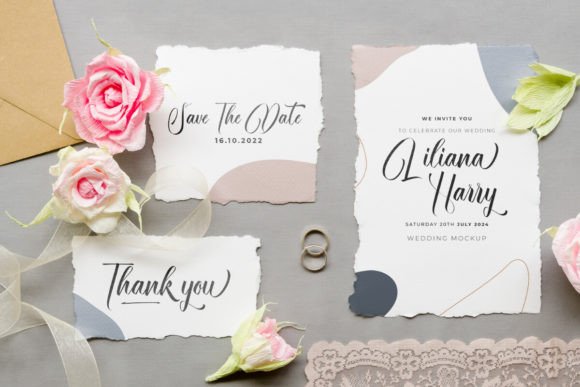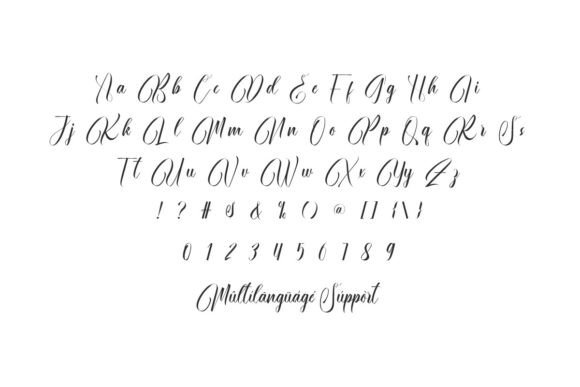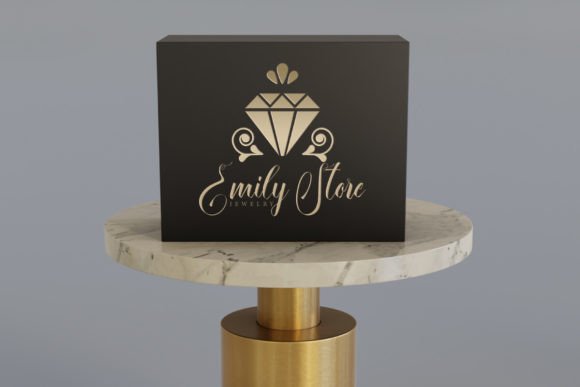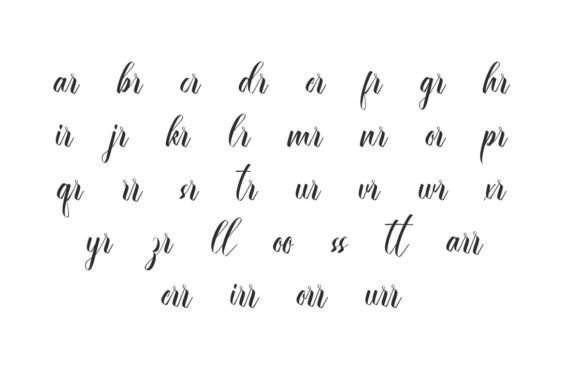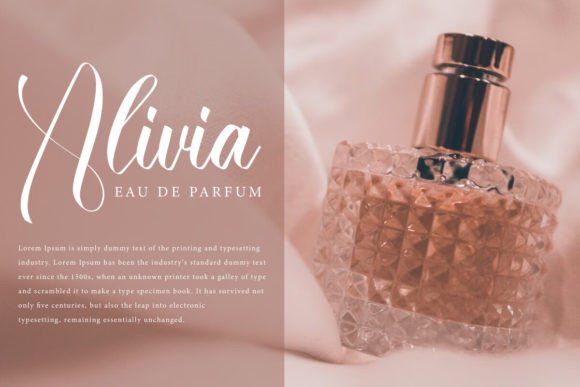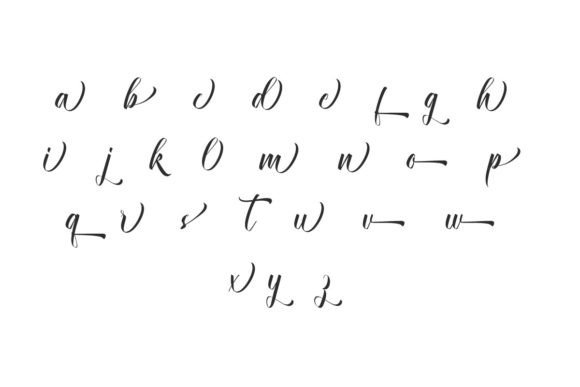
Introduction to Rachilla Font
Have you ever stumbled upon a beautiful design that left you wondering what made it so special? For designers, the perfect font can be the key to unlocking a creative project’s full potential. As you scroll through your design board, you come across a stunning billboard, and your eyes are drawn to the elegant script that makes it stand out. This is where the Rachilla Font comes in – a stylish calligraphy-styled font with brush balance that will elevate your designs to new heights.
With its classy look and ease of readability, Rachilla Font is a valuable addition to any designer’s toolkit. Whether you’re working on billboards, brand logos, covers, or invitations, this font is sure to add a touch of sophistication to your designs. Plus, with multilingual language support and seamless integration with popular design software, you can focus on bringing your creative vision to life without any hassle.
Ready to experience the beauty of Rachilla Font for yourself? In this article, we’ll dive into the world of this high-quality font and explore its features, applications, and benefits for designers.
Key Features of Rachilla Font
- Unique characteristics include a modern, minimalist aesthetic and a wide range of style options
Honest Review: Rachilla Font
As a designer, I’m always on the lookout for high-quality design resources to elevate my creative projects. Recently, I had the chance to try out the Rachilla Font, and I’m excited to share my honest review.
What works well: ✨ The Rachilla Font is a beautiful, elegant script font that’s perfect for adding a touch of sophistication to your designs. Its high-quality texture and intricate details make it a standout choice for any creative project. Plus, it’s available for free download, which is always a bonus!
- Perfect for wedding invitations, branding, and other high-end designs
- Works well for digital designs, such as social media graphics and presentations
- Can be used for print designs, such as business cards and brochures
What doesn’t work so well: ⚠️ One limitation of the Rachilla Font is that it doesn’t come with a transparent background option. This can make it a bit tricky to use in designs that require a see-through background.
Overall, I’m really impressed with the Rachilla Font. Its high quality and elegant design make it a valuable addition to any design library. While it may have some limitations, I think it’s a great choice for designers looking to add some sophistication to their creative projects.
Tips for Getting the Most Out of Rachilla Font
To get the most out of Rachilla Font, use it in conjunction with other high-quality design elements. Experiment with different font sizes, colors, and styles to create visually appealing designs. You can also use the font in combination with transparent backgrounds to create a cohesive look.
Rachilla Font is ideal for a variety of creative projects, including logos, business cards, and social media graphics. Its transparent background makes it easy to integrate into designs with complex backgrounds. You can also use the font in presentations, reports, and other documents where a high-quality font is required.